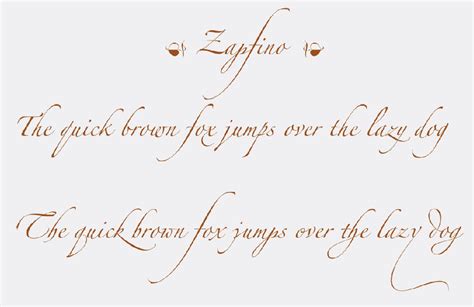
Zapfino Font Test. Are you bored to use always the same classic fonts? Web 11 alternative fonts to zapfino.
Are you bored to use always the same classic fonts? Web 11 alternative fonts to zapfino. Zapfino is one of the most downloaded fonts in the world with lots of pro features. Web the basic zapfino font family, released in 1998, consists of four alphabets with many additional stylistic alternates. Web zapfino is a font with a rich and complex character set, with many ligatures, swashes, alternates, and ornaments.
Web zapfino is a font with a rich and complex character set, with many ligatures, swashes, alternates, and ornaments. Web zapfino is a font with a rich and complex character set, with many ligatures, swashes, alternates, and ornaments. Zapfino is one of the most downloaded fonts in the world with lots of pro features. Web 11 alternative fonts to zapfino. Are you bored to use always the same classic fonts? Web the basic zapfino font family, released in 1998, consists of four alphabets with many additional stylistic alternates.